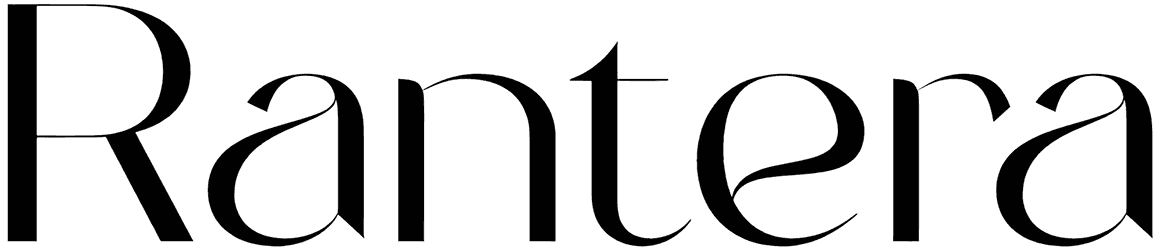
Rantera Font
Rantera is a modern sans serif font with a stylish appearance that always remains trendy. It delivers a luxurious look in a minimal way and has the potential to become your favorite one. This font can be used for wedding…
Rantera is a modern sans serif font with a stylish appearance that always remains trendy. It delivers a luxurious look in a minimal way and has the potential to become your favorite one. This font can be used for wedding invitations, fashion brands, logotypes, photo overlays, magazine covers, and many more.